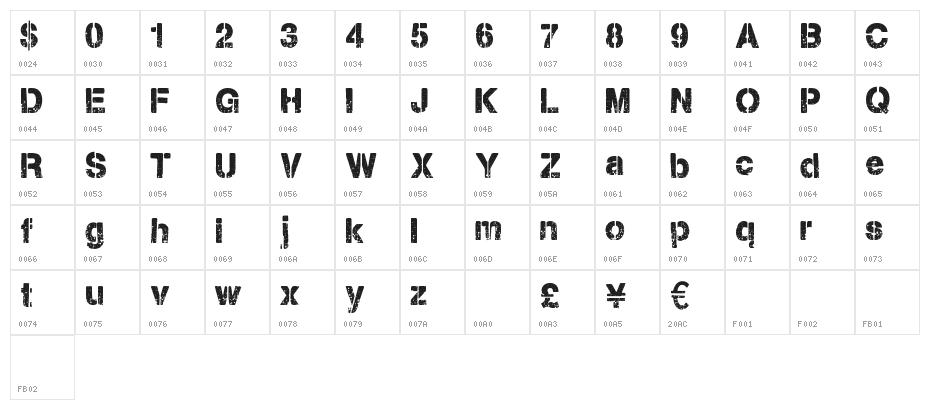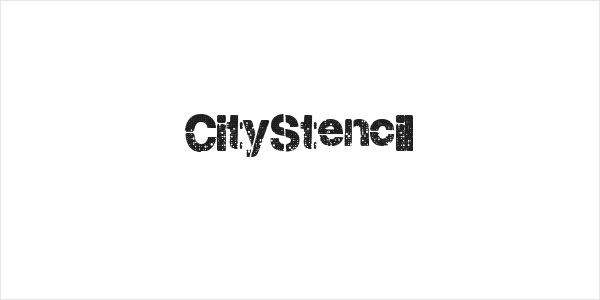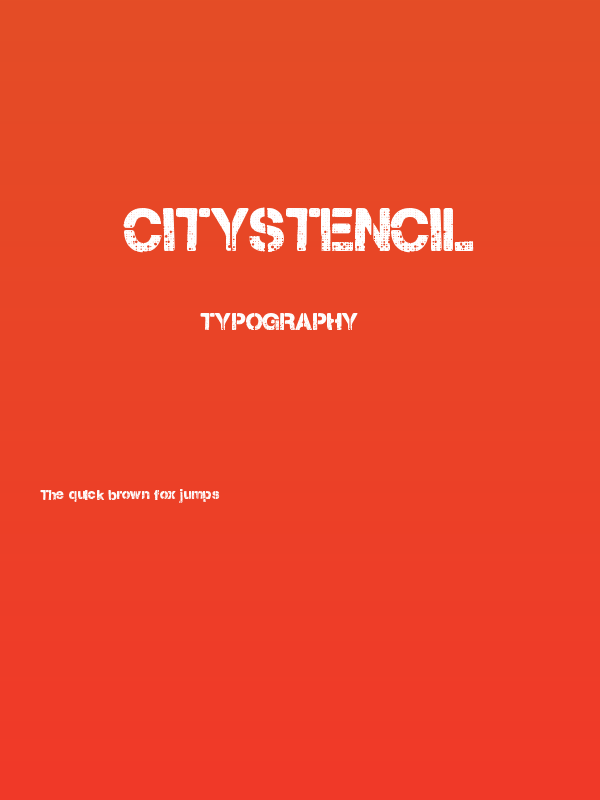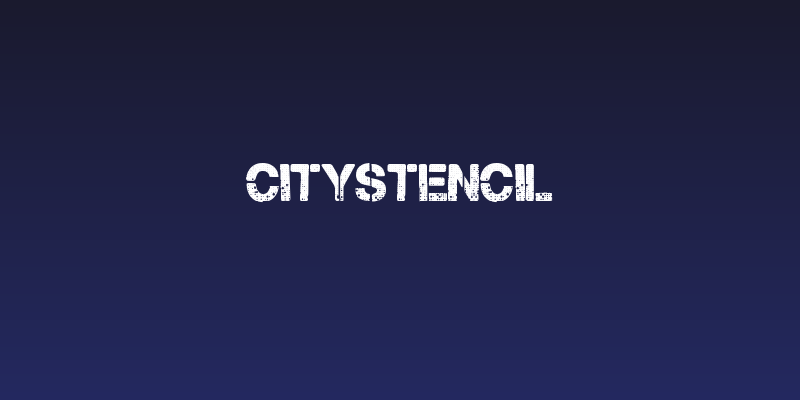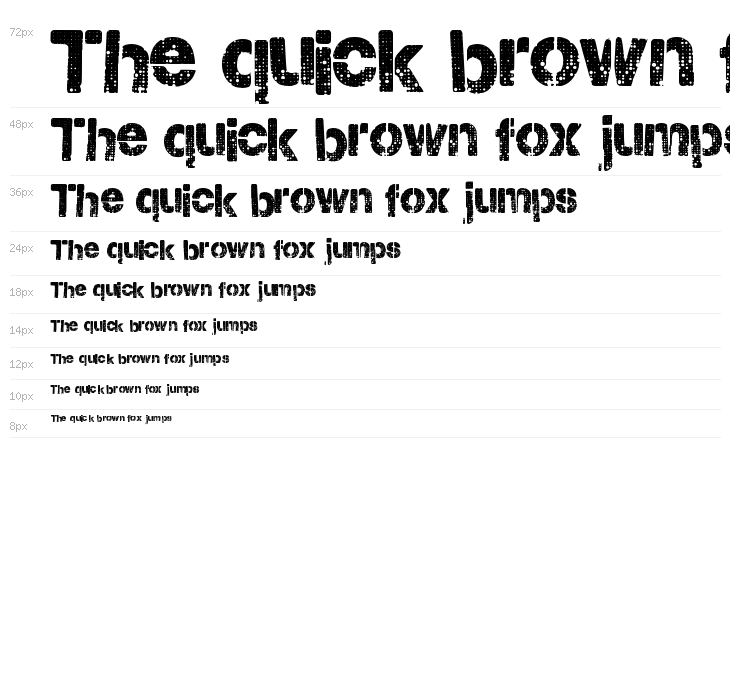
CityStencil Font
CityStencil Description
This font features a bold, stencil-like design with a distressed texture, giving it an urban and industrial feel. The characters are robust and impactful, with a consistent thickness throughout, which enhances its legibility. The distressed effect adds a gritty, worn appearance, making it ideal for projects that require a rugged or vintage aesthetic. The uppercase and lowercase letters maintain a uniform style, while the numerals and special characters complement the overall design. This font is versatile for creative projects that aim to convey strength and edginess.
| Overall Style | Urban, Industrial, Vintage |
| Proposed Projects | Ideal for posters, signage, branding, and any project needing a rugged, urban look. |